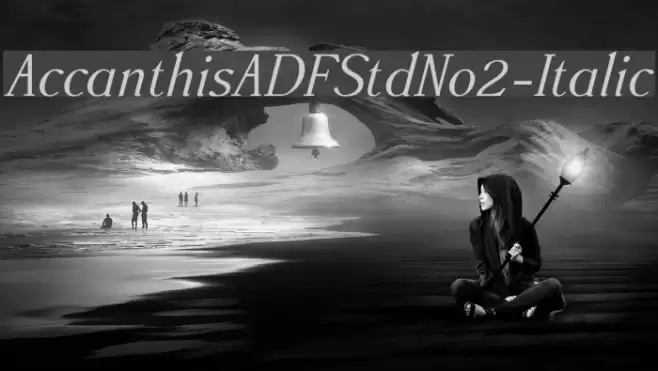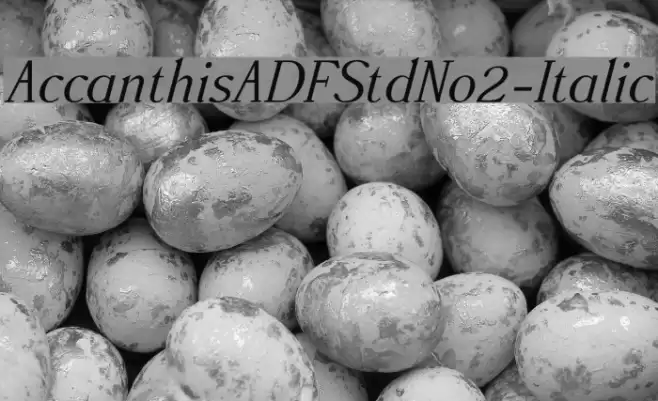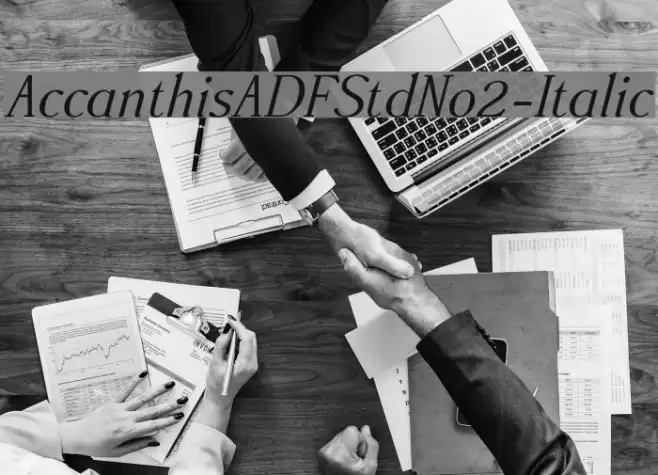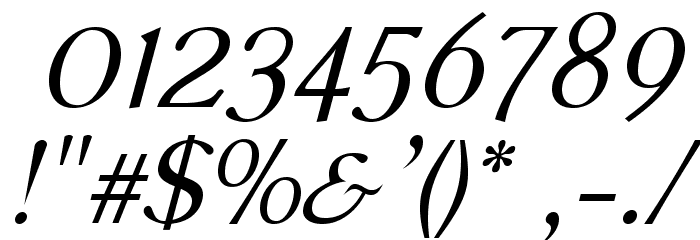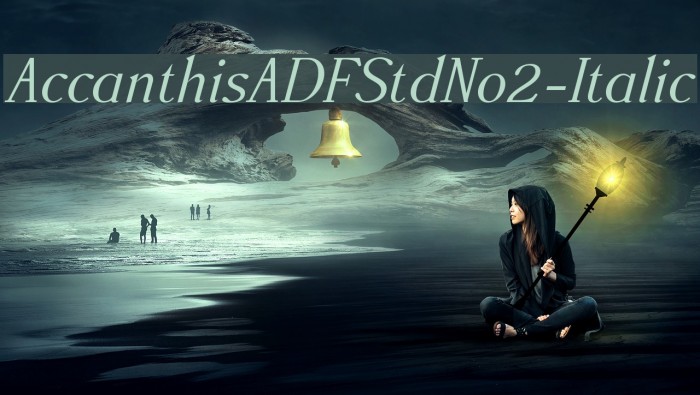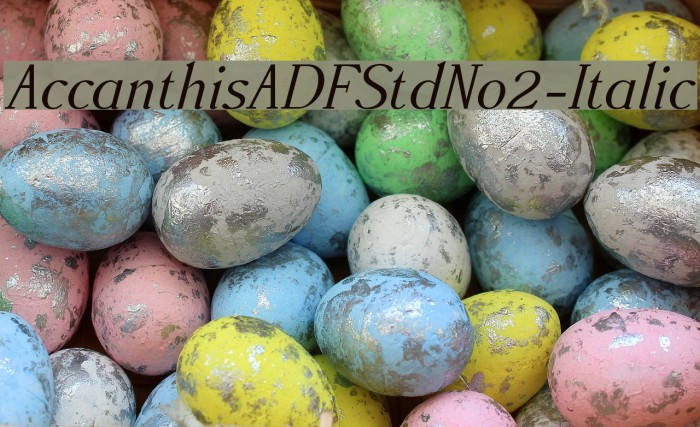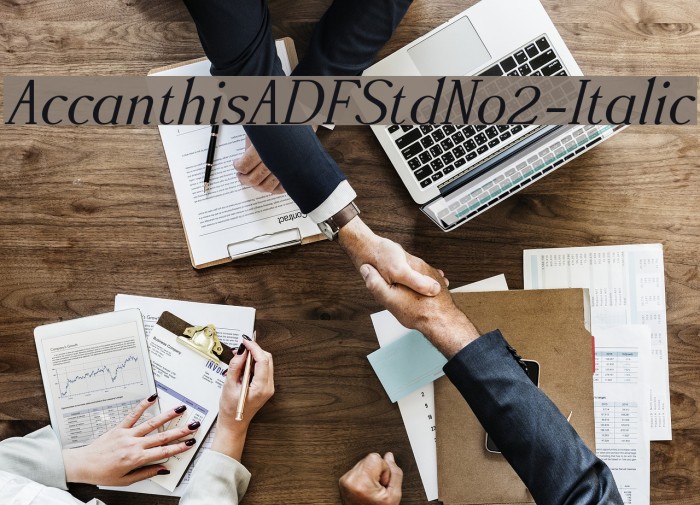
AccanthisADFStdNo2-Italic Font
AccanthisADFStdNo2-Italic Description
This elegant serif font features a classic italic style, characterized by its graceful curves and refined serifs. The uppercase letters are tall and slightly narrow, while the lowercase letters exhibit a smooth, flowing design. The numerals are consistent with the overall style, maintaining a sophisticated appearance. The special characters are well-integrated, offering a cohesive look across all glyphs. This font is ideal for projects that require a touch of elegance and tradition, such as formal invitations, editorial design, and high-end branding.
An elegant serif font with a classic italic style and refined serifs from Uncategorized fonts.
- Proposed Projects: Ideal for formal invitations, editorial design, and high-end branding.
- Overall Style: Classic